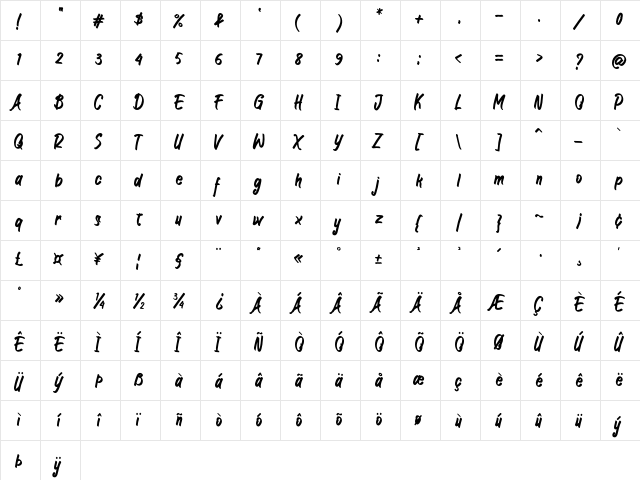
JIANGKRIK Regular Font Preview
JIANGKRIK Regular
JIANGKRIK Regular Font Details
| Foundry | Motokiwo |
| Designer | Anton Cahyono |
Design Context for JIANGKRIK Typeface
JIANGKRIK is a composed and adaptable typeface that performs quietly and consistently across a wide range of design contexts.